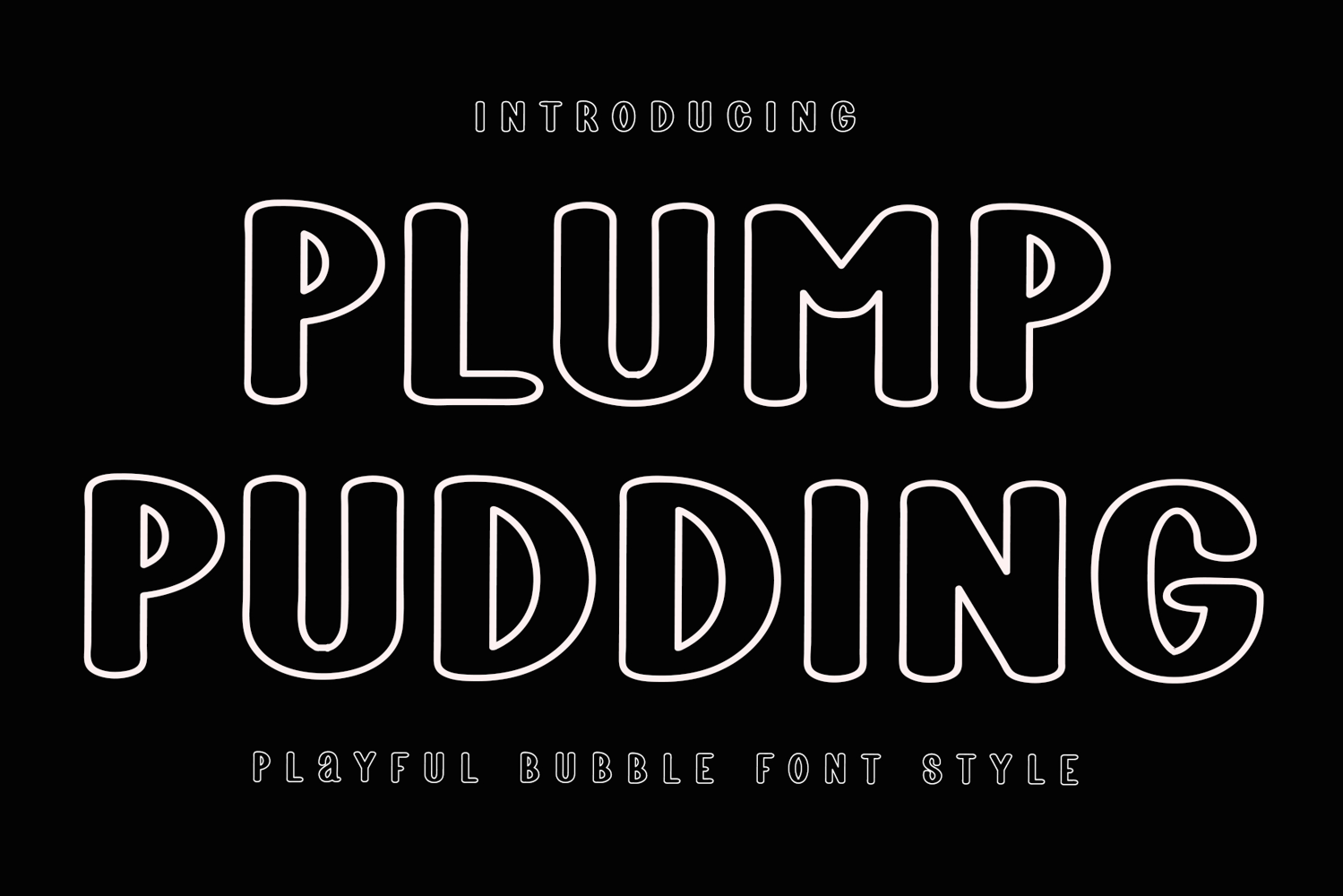
Plump Pudding
Plump Pudding is a beautiful and eye-catching font designed with a soft, unique touch. Its distinctive strokes give it a special character, making it meaningful and versatile for future use. With various characters, it’s perfect for design projects, crafts, and other creative works.